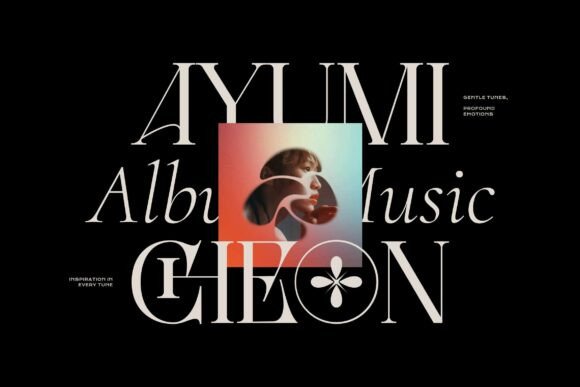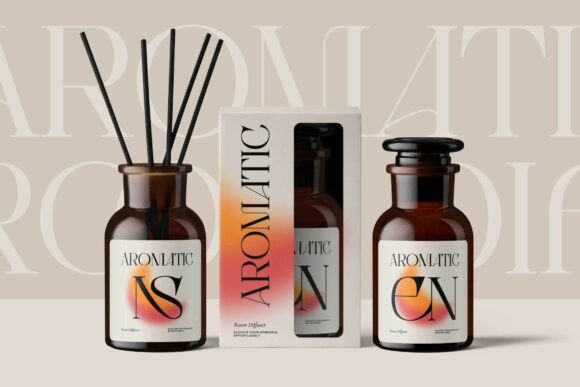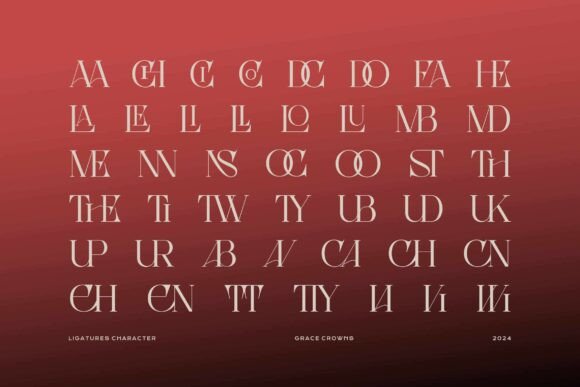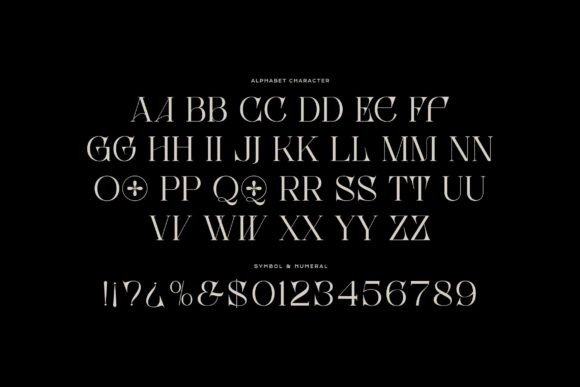
The Elusive Luxury Font: My Journey with Grace Crowns
Have you ever been in the middle of a design project, and suddenly, you’re stuck on finding the perfect font? I recall a particularly frustrating experience while working on a luxury brand’s wedding invitation suite. The client wanted a font that exuded elegance, sophistication, and a touch of modernity. After hours of scouring font libraries, I stumbled upon Grace Crowns – a serif font that checked all the boxes.
An Honest Review of Grace Crowns Font
- ✅ Elegant and luxurious feel, perfect for high-end projects
- ✅ Modern aesthetic with a classic twist
- ✅ Comes with alternatives and ligatures for stunning design combinations
- ✅ Suitable for various design applications, including magazines, social media, branding, and wedding invitations
While Grace Crowns is an exceptional font, there are a few minor limitations to consider:
- 🤔 May not be the best choice for body text due to its elegant, yet refined nature
- ⚠️ Limited availability of condensed or extended versions, which might limit its use in certain design contexts
The Story Behind Grace Crowns
Rumor has it that the creator of Grace Crowns, a talented type designer, was inspired by the intricate details of antique luxury packaging. They aimed to craft a font that would evoke a sense of sophistication and refinement, while still feeling modern and fresh. The result is a font that has captured the hearts of designers and luxury brands alike.
| Font Name | Grace Crowns Font |
| Author | imoodev |
Q: What makes Grace Crowns suitable for luxury-themed projects?
A: Its elegant, refined design, and OpenType features like ligatures and stylistic alternates, make it perfect for creating stunning, high-end designs.
Q: Can I use Grace Crowns for body text?
A: While it’s possible, Grace Crowns is better suited for headlines, titles, and short paragraphs due to its elegant, yet refined nature.